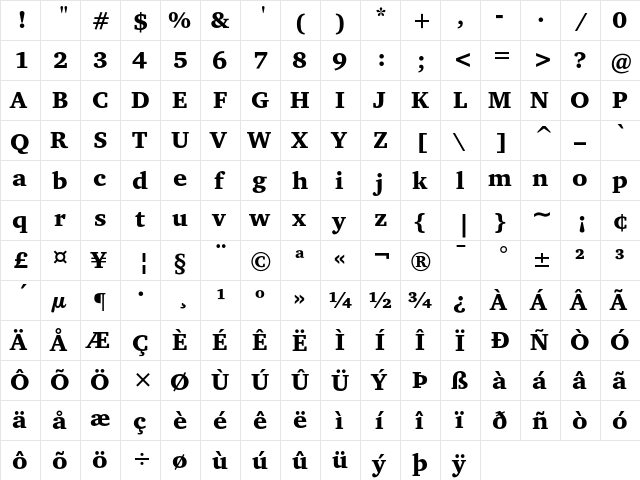
CharterITCBlack Regular
| Foundry | ParaType Inc. |
| Designer | Matthew Carter, Vladimir Yefimov |
Design Context for CharterITCBlack Typeface
CharterITCBlack is a composed and adaptable typeface that performs quietly and consistently across a wide range of design contexts.